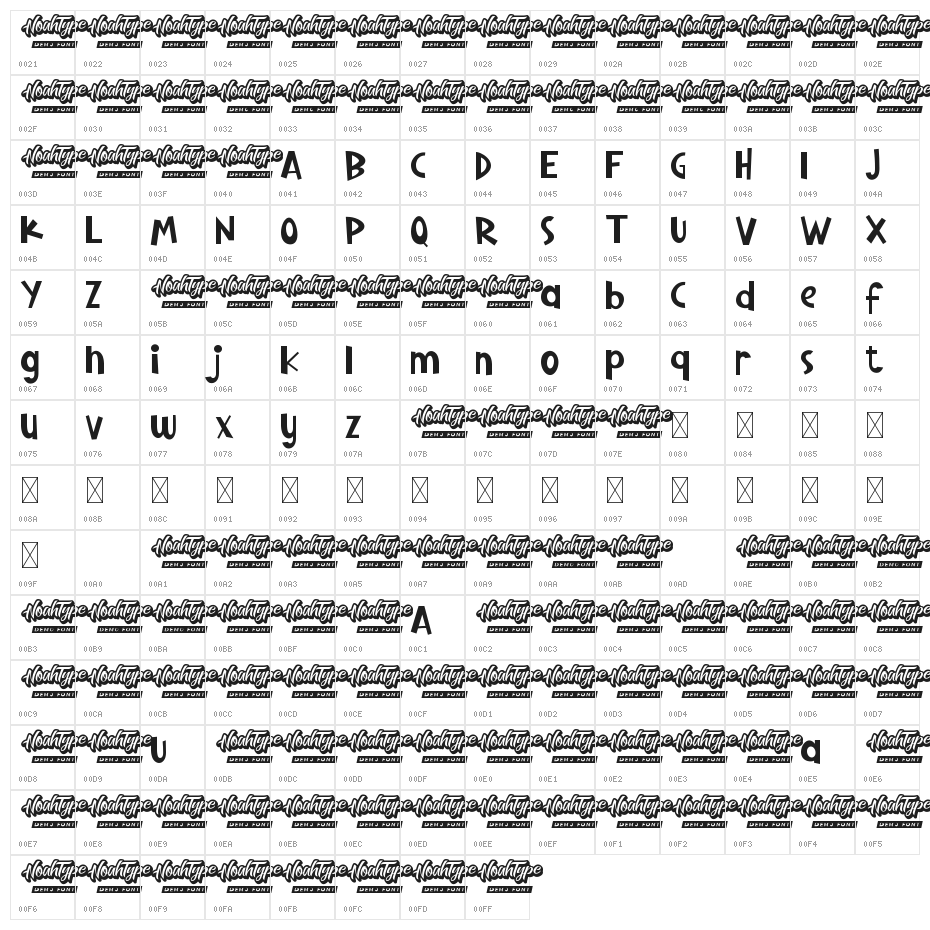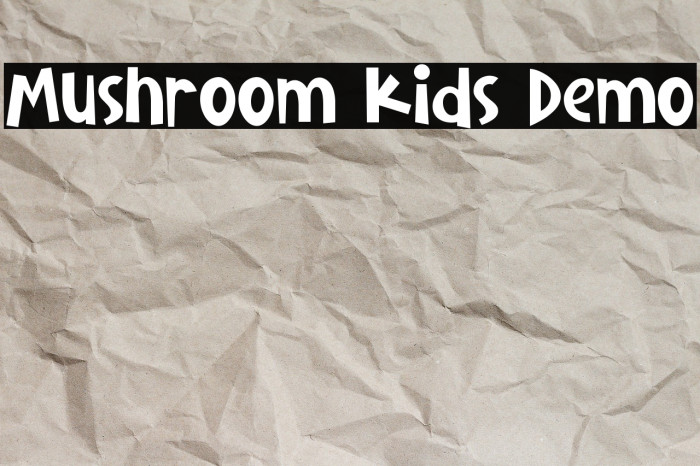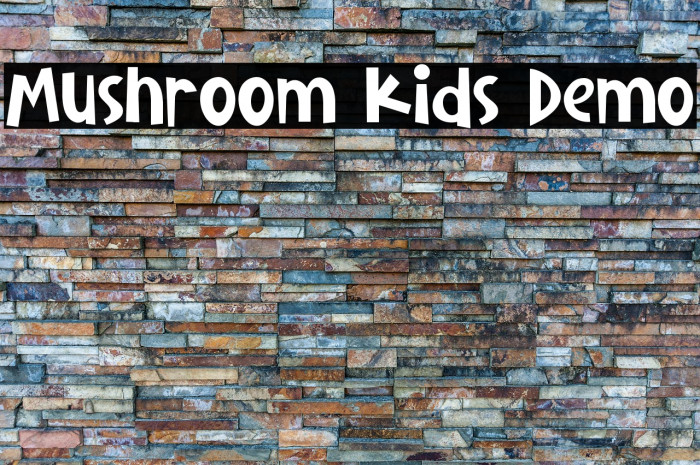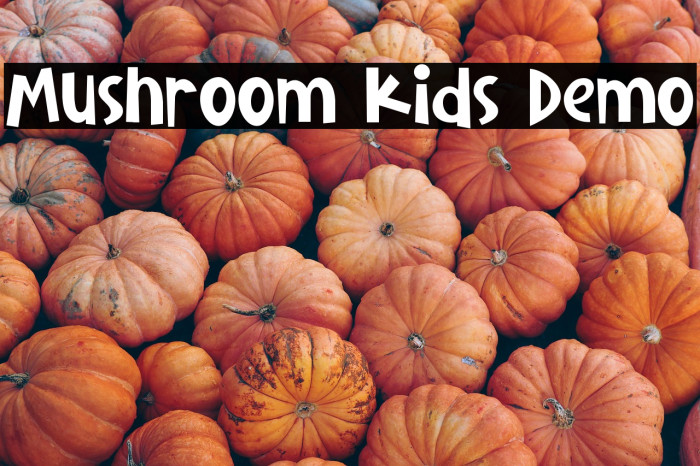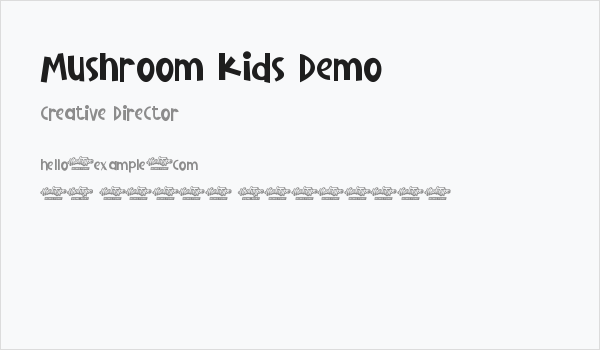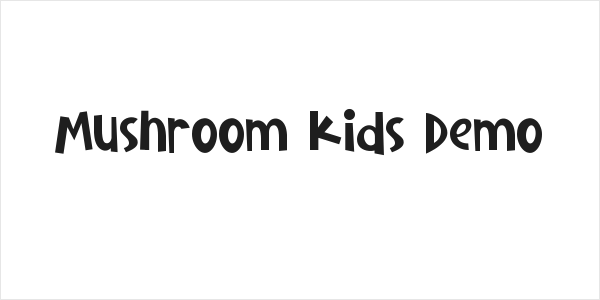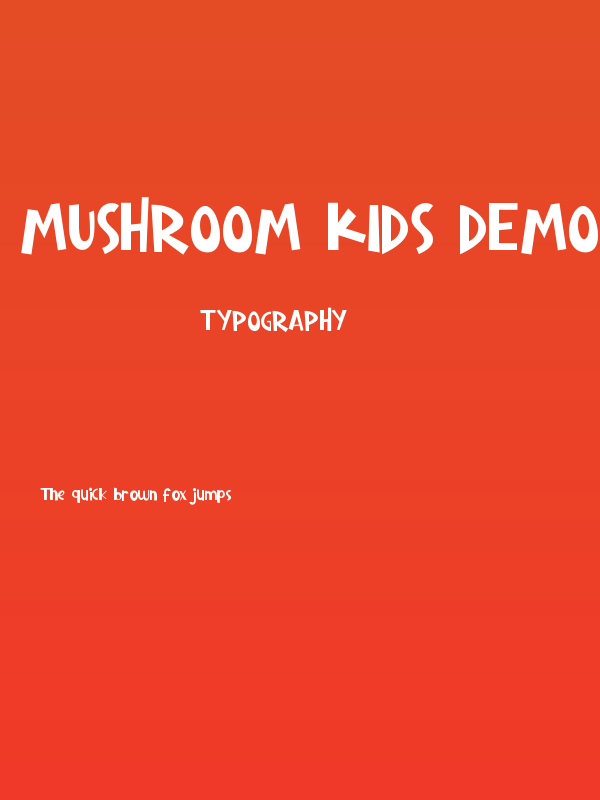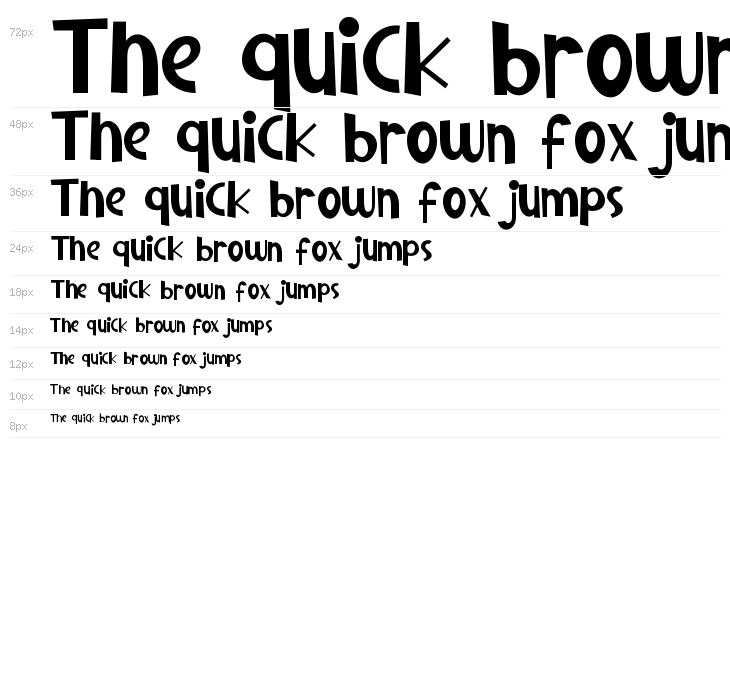
Mushroom Kids Demo Font
Mushroom Kids Demo Description
This playful and whimsical font features bold, rounded characters with a slightly uneven baseline, giving it a lively and energetic feel. The uppercase letters are tall and slightly narrow, while the lowercase letters maintain a consistent height, adding to the font's quirky charm. The strokes are thick and uniform, providing a strong visual impact. The font's unique style is reminiscent of hand-drawn lettering, making it ideal for projects that require a fun and informal touch. Its distinctive character shapes and playful design make it stand out, perfect for capturing attention in creative and youthful designs.